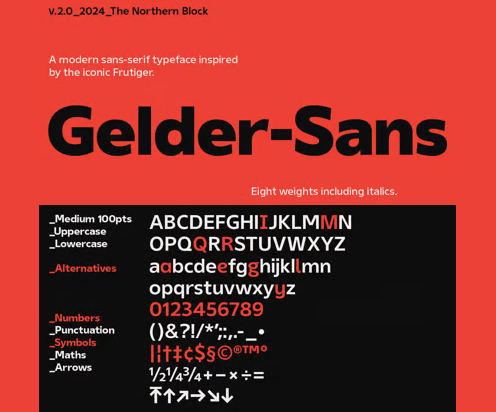
Gelder Sans Font Family
A clean modern sans serif typeface. The balanced proportions of each character demonstrate great legibility at both small and large scale. The distinctively open apertures further improves visibility when used across the web and hand held devices. Details include 9 weights with italics, 500 characters, 5 variations of numerals, stylistic alternatives, manually edited kerning and Opentype features.